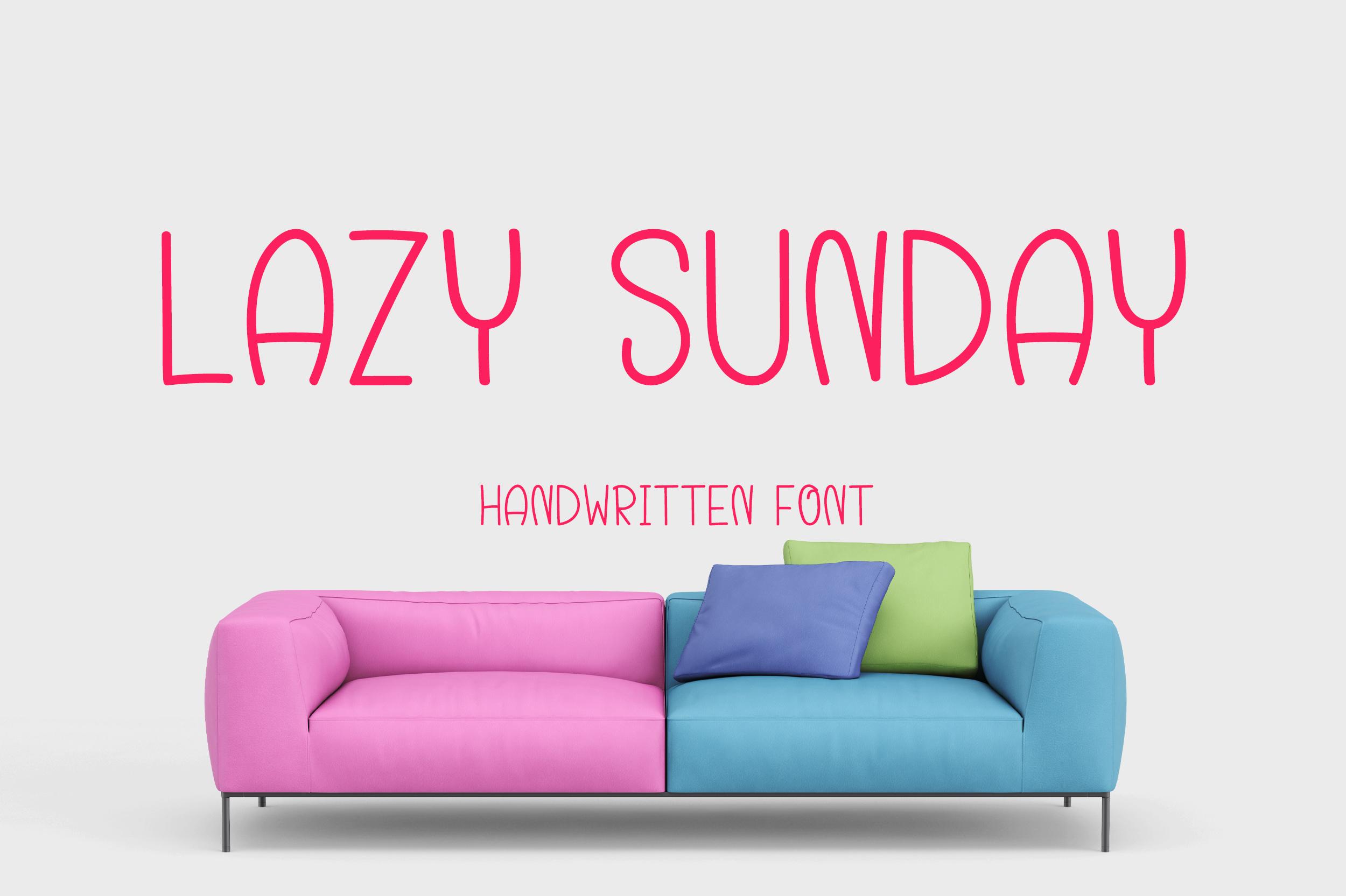
Lazy Sunday Font Description
Lazy Sunday is a cute and casual handwritten font with an incredibly friendly feel. It will elevate a wide range of design projects to the highest level, be it branding, headings, invitations, signatures, logos, labels, and much more!